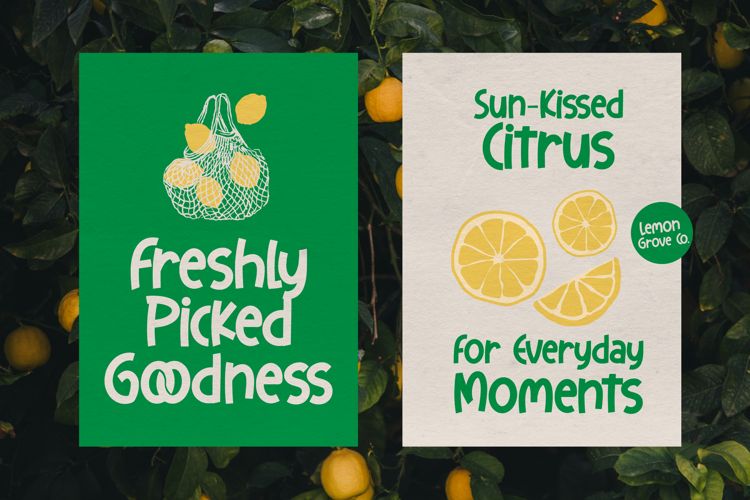
Comfy Quacky | Display Hand Drawn is suitable for any projects such as: logos, branding projects, homeware designs, product packaging, mugs, quotes, posters, shopping bags, t-shirts, book covers, name card, invitation cards, greeting cards, label, photography, watermark, special events, and all your other lovely projects that need a Hand Drawn taste.